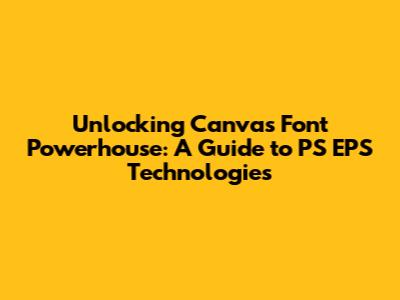
- Start a New Design: Open Canva and either start a new design from scratch or choose a template that catches your eye. Canva offers a ton of pre-designed templates for social media posts, presentations, posters, and more.
- Add Text: Click the
Hey guys! Let's dive into the awesome world of Canva fonts and how they can seriously level up your design game. We'll be exploring the intricacies of PS and EPS technologies, all while making it super easy to understand. So, grab a coffee, and let's get started! Whether you're a seasoned designer or just starting out, this guide will help you understand the magic behind Canva's fonts and how to use them effectively.
Understanding the Basics: Fonts, Canva, and You
First things first, let's break down the essentials. What exactly are fonts, and why are they so crucial in design? Fonts are essentially the visual representation of text. They go way beyond just the letters; they include the style, size, and overall look of your words. Think of them as the personality of your text. And in Canva, you've got a massive library of fonts at your fingertips, ready to transform your designs from blah to brilliant. Canva itself is a user-friendly design platform that's become a go-to for everyone from social media managers to small business owners. Its ease of use combined with its extensive font collection makes it a powerful tool for visual communication.
Now, why is all of this important? Because the font you choose can make or break your design. It can instantly convey a mood, set a tone, and grab your audience's attention. A playful font for a kids' party invitation? Absolutely! A sleek, professional font for a business presentation? You got it! Canva gives you the power to choose fonts that perfectly match your message and brand. Getting a handle on how to work with fonts in Canva is like getting the keys to a treasure chest of design possibilities. You can customize templates, create your own unique designs from scratch, and even upload your own fonts. We'll explore these options in more detail below, but for now, remember that fonts are the building blocks of visual communication. Choosing the right ones can make your designs pop and resonate with your audience. This understanding will pave the way for you to utilize Canva's PS and EPS technology.
Beyond this, Canva's user-friendly interface simplifies the whole process. There's no need to be a design guru to create professional-looking visuals. The platform has a vast array of templates, design elements, and, of course, fonts. Canva's font library is regularly updated, offering a huge variety of styles. This is where PS and EPS technologies come into play, offering advanced control over how fonts are displayed and used. With Canva, you can easily alter font size, color, spacing, and alignment. These seemingly small adjustments can drastically change the visual impact of your text. You can also mix and match different fonts to create a unique and visually appealing composition. Learning the basics allows you to create engaging and effective designs. Remember, your designs will become much more attractive and engaging by just knowing a bit about fonts and how they work.
So, as you can see, fonts in Canva are not just about picking pretty letters. They are about telling a story, expressing your brand's personality, and connecting with your audience on a deeper level. Let's get into the specifics of how Canva makes all this font magic happen.
PS and EPS: The Tech Behind Canva's Font Magic
Alright, let's get a little techy. But don't worry, we'll keep it simple! PS (PostScript) and EPS (Encapsulated PostScript) are crucial players in the world of fonts, especially when you're working with design platforms like Canva. Think of them as the behind-the-scenes engineers that make sure your fonts look amazing, no matter where they're displayed or printed. In essence, PS and EPS are languages that describe how text and images should be rendered. They're like the instructions that tell a printer or a screen exactly how to display a font. They offer high-quality rendering, meaning your fonts will look crisp and clear, no matter the size.
PostScript (PS) is a page description language primarily used for printing. It describes the layout and appearance of a page, including text, images, and other elements. Think of it as a blueprint for your design, ensuring that everything is rendered accurately. Encapsulated PostScript (EPS) is a file format that's based on PS. It's essentially a self-contained PS program, specifically designed for importing graphics into other documents. EPS files are vector-based, which means they can be scaled up or down without losing any quality. This is super important when working with fonts because it ensures that your text remains sharp and clear, regardless of its size or resolution. It's especially useful in professional printing and design, where quality is paramount.
Canva uses these technologies behind the scenes to ensure that the fonts you choose look their best. When you select a font in Canva, the platform uses PS and EPS instructions to display the text on your screen and, most importantly, when you download or print your design. This ensures that the fonts are rendered correctly and maintain their original design, even if they are scaled or used across different devices. Without PS and EPS, fonts could look pixelated or distorted, especially at larger sizes. These technologies allow Canva to handle complex font rendering efficiently, making sure your designs always look polished and professional. These technologies enable smooth scaling, which is especially important for designers who may be working on various projects with differing requirements. By employing these technologies, Canva ensures that your fonts remain sharp and attractive.
In essence, PS and EPS are the unsung heroes of font rendering in Canva. They're the secret sauce that makes your fonts look so fantastic. So, the next time you're creating a design and marveling at the crispness of your text, give a little nod to PS and EPS, the tech that makes it all possible. Understanding these concepts helps users appreciate the effort and thought that goes into designing and implementing fonts within Canva. By understanding the tech behind fonts, you can make informed decisions when choosing and using them. You can also troubleshoot any issues that may arise, such as a font appearing distorted or not displaying correctly.
Utilizing Fonts in Canva: Step-by-Step
Alright, now that we understand the tech behind the curtain, let's get our hands dirty and learn how to actually use fonts in Canva. Canva's user-friendly interface makes the whole process a breeze, even for beginners. Here's a step-by-step guide to get you started: